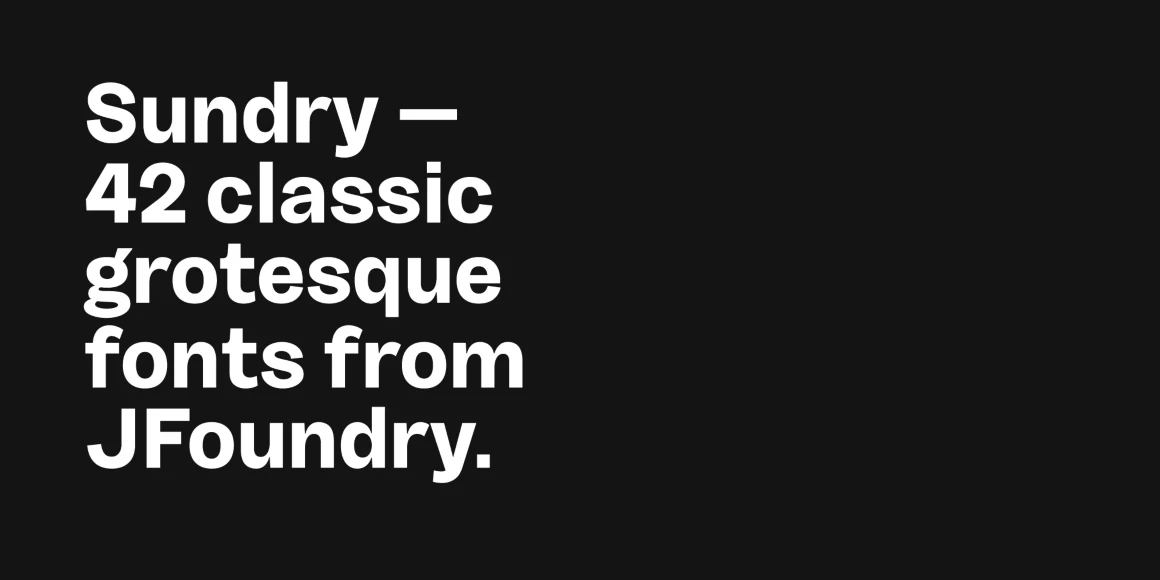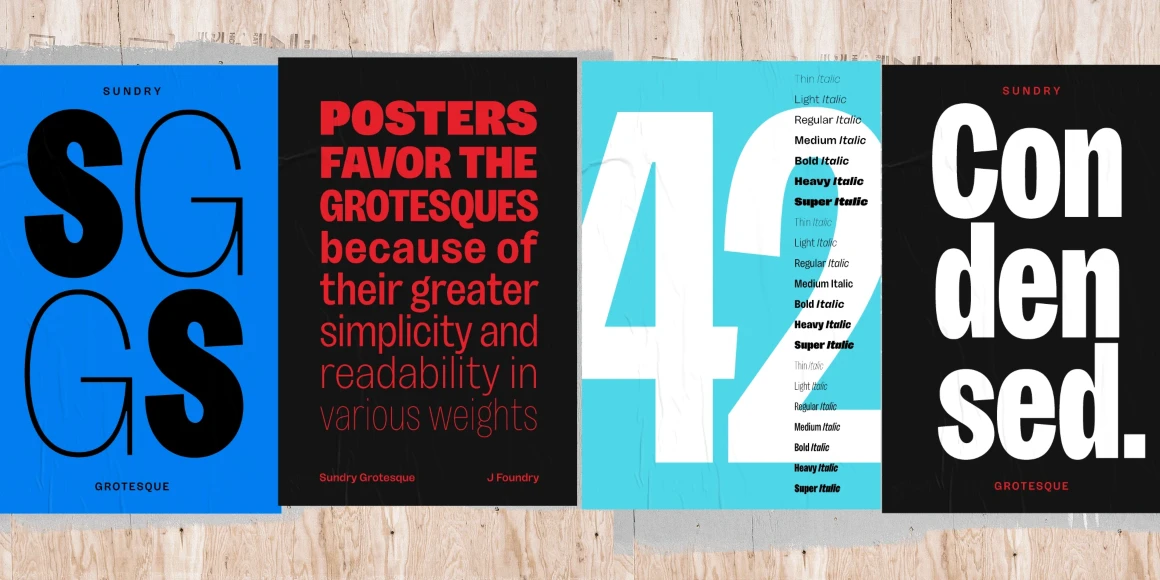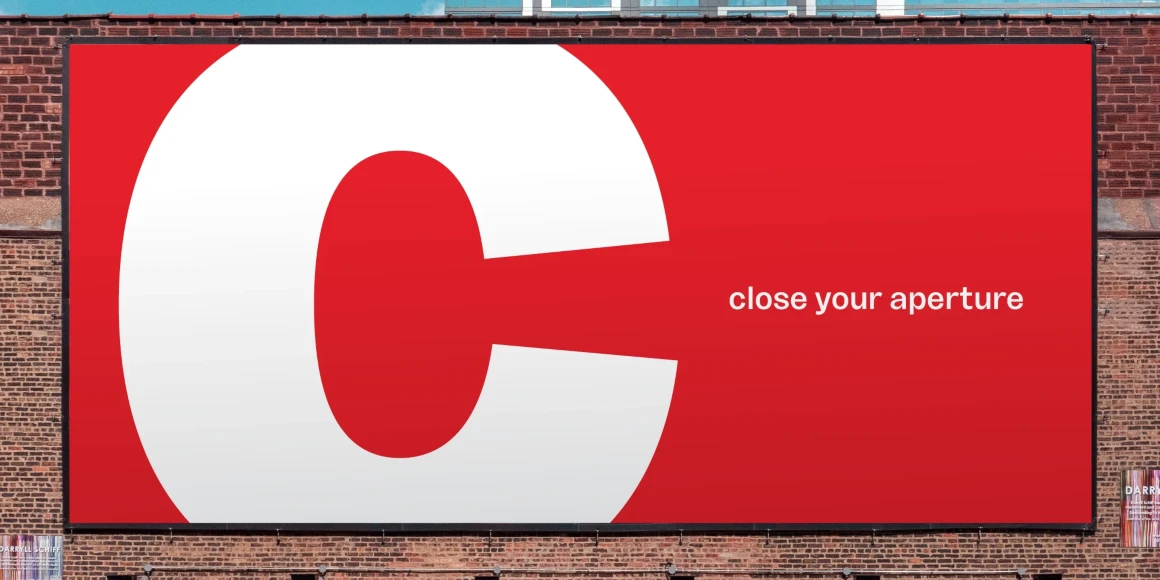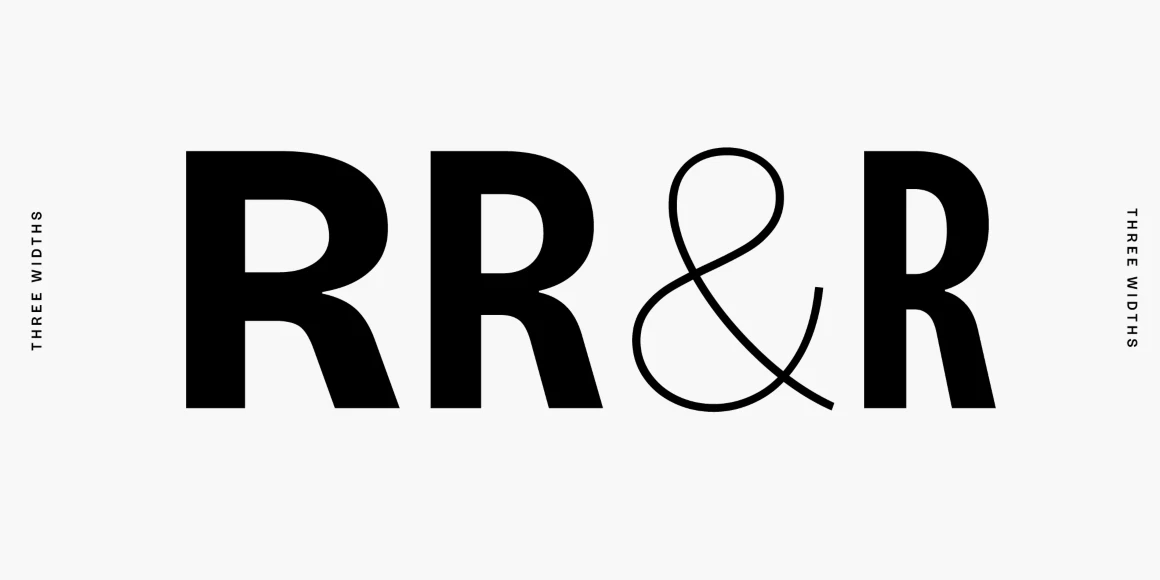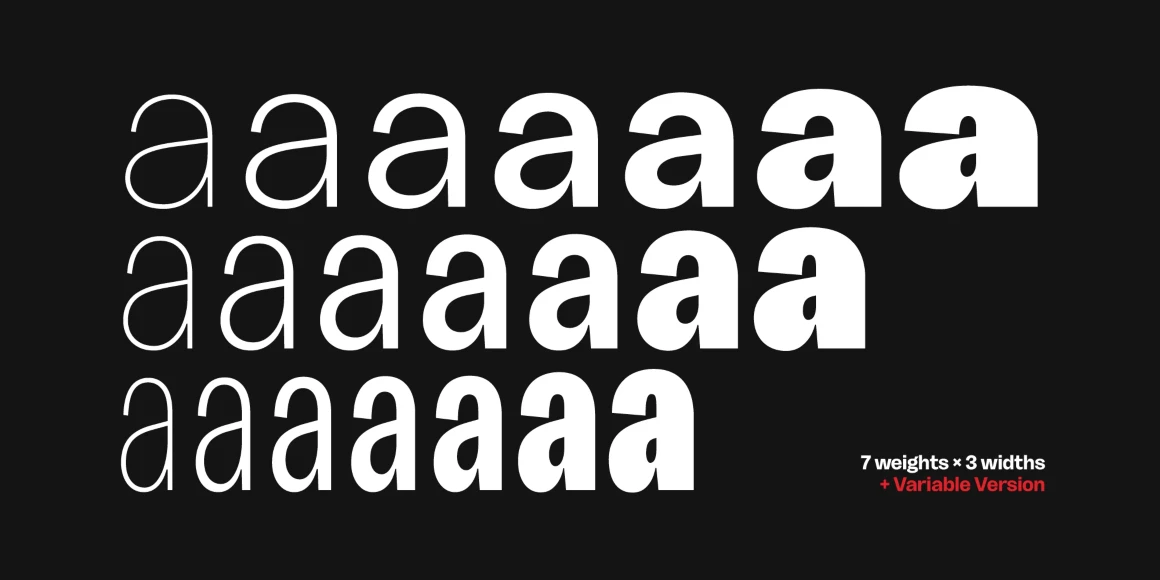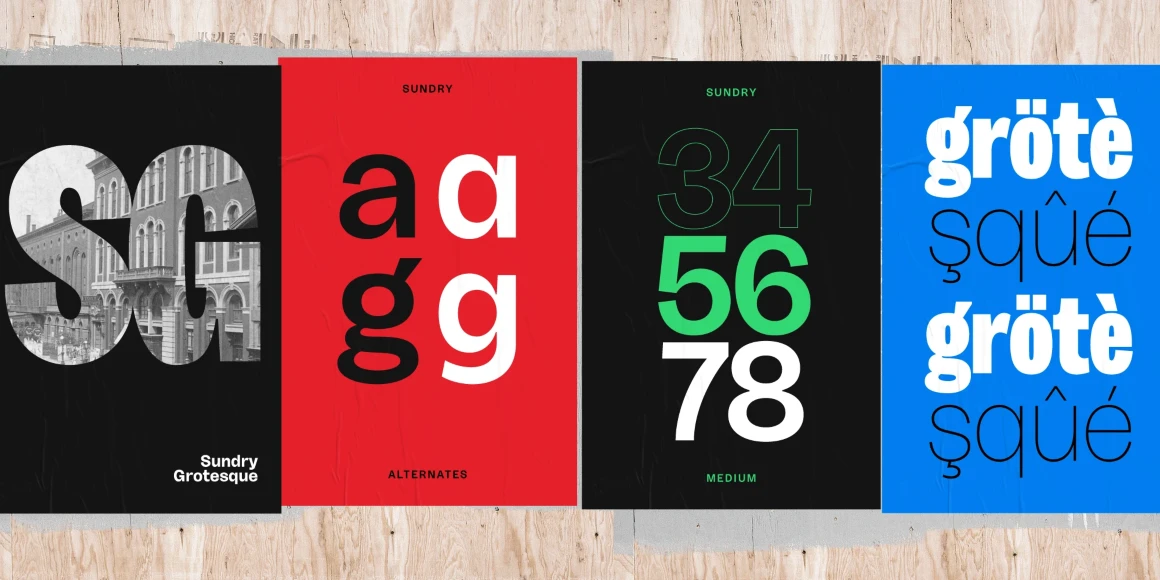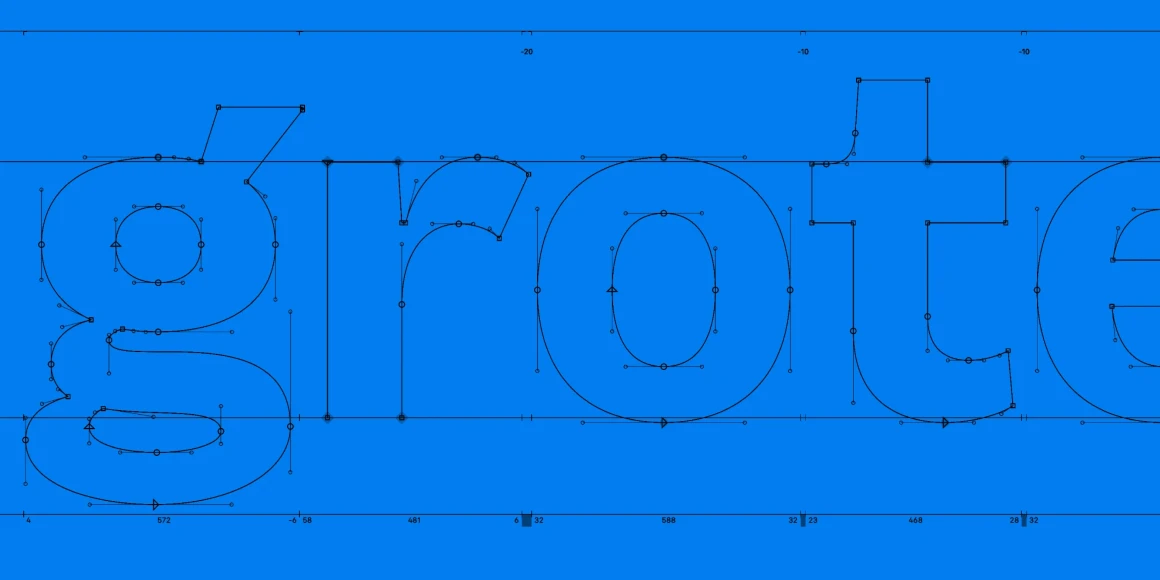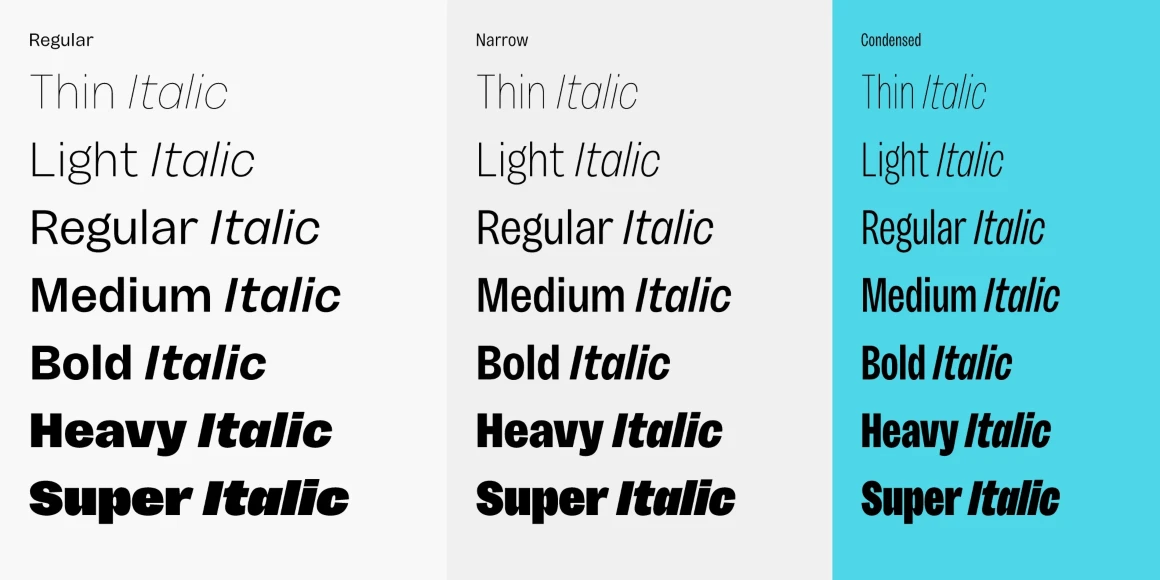
Sundry
From J Foundry
Sundry is J Foundry’s take on the early 20th century grotesque. The design draws influence from various designs of the period. Drawn and cut by hand, these sans have idiosyncrasies and quirks, producing a warm friendly look. The design objective was to even out the quirks and add consistency, without losing the warmth. Sundry looks to balance character and structure for a clear but personable read.
Designed by Jason Vandenberg